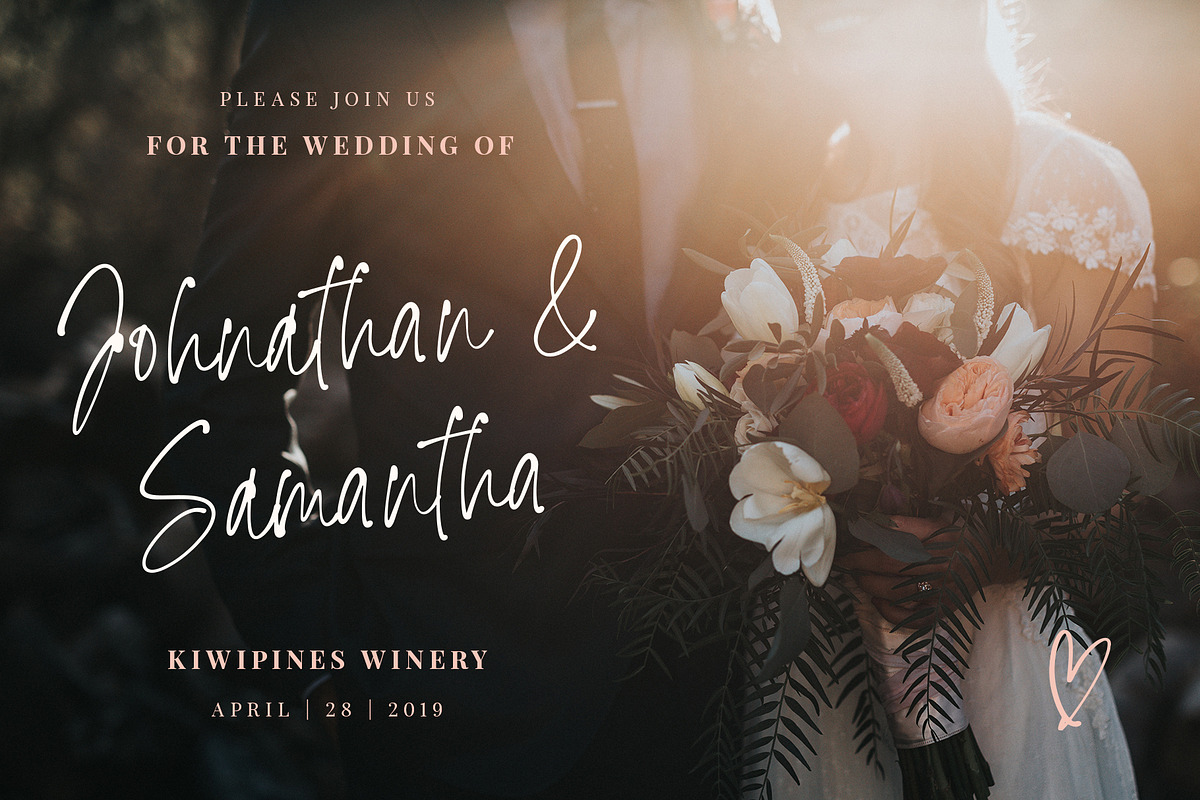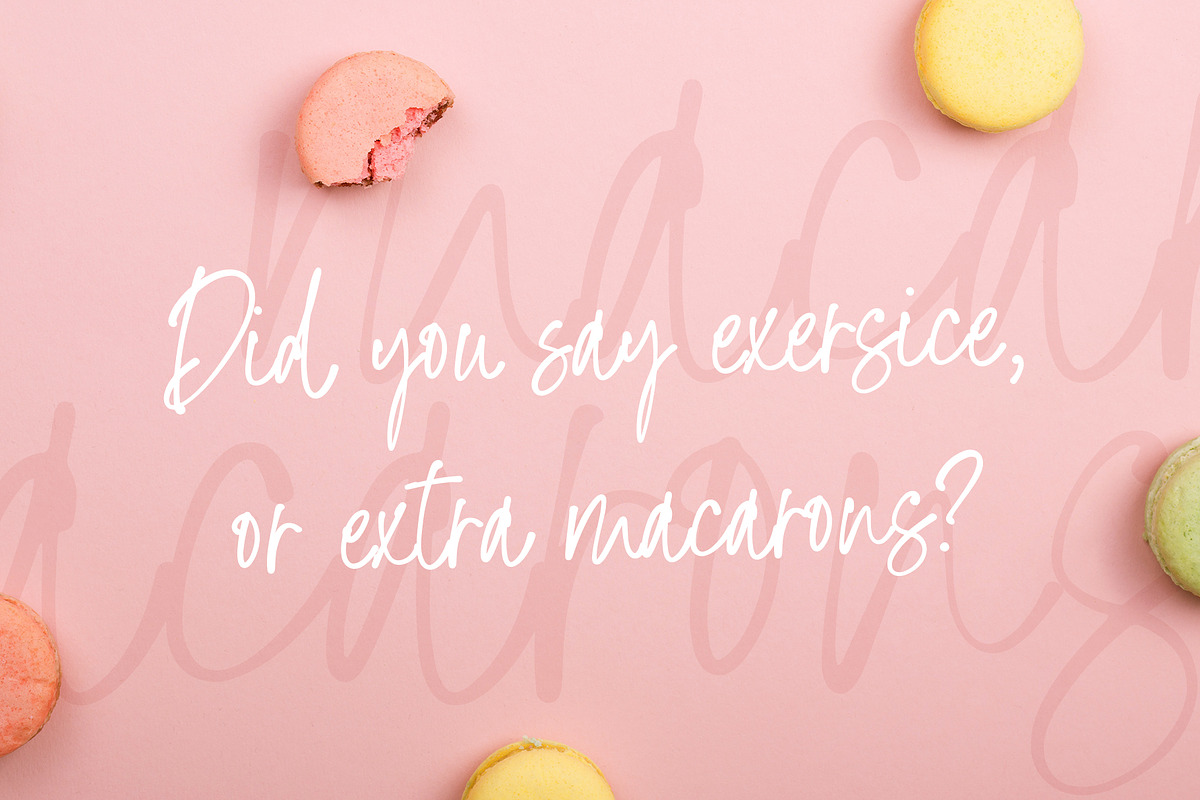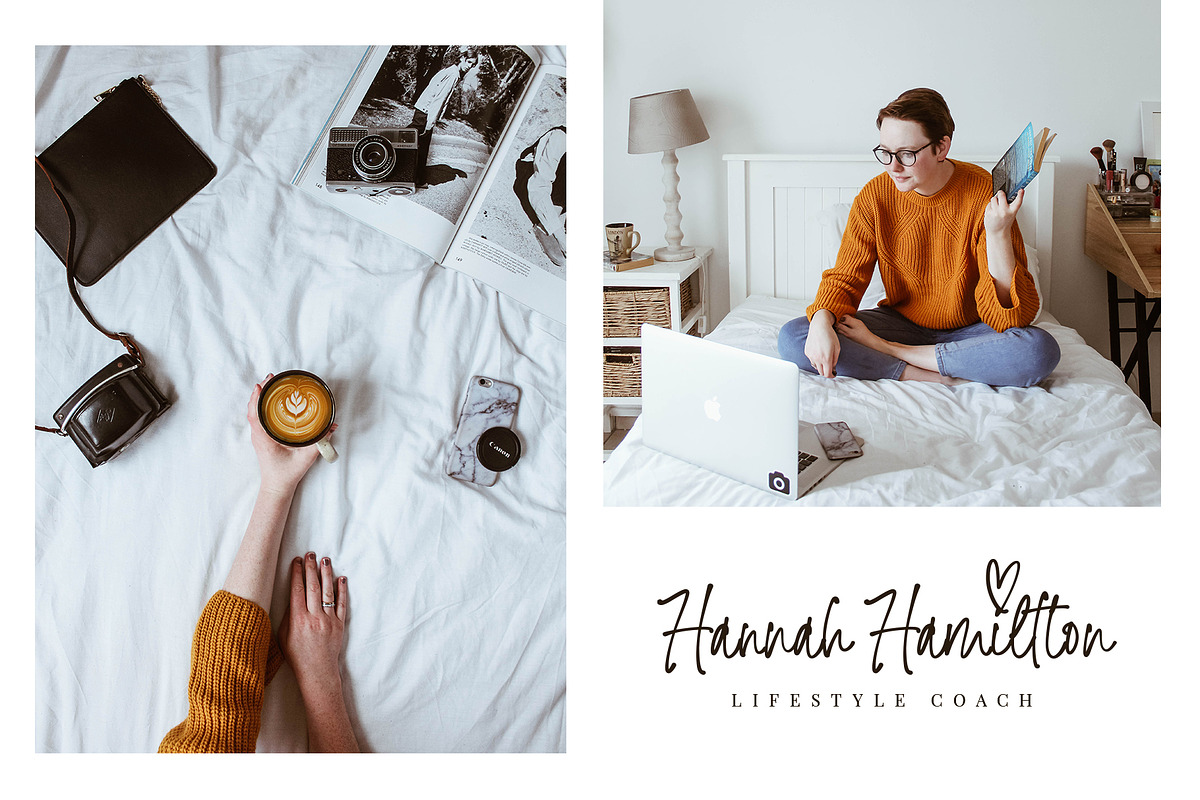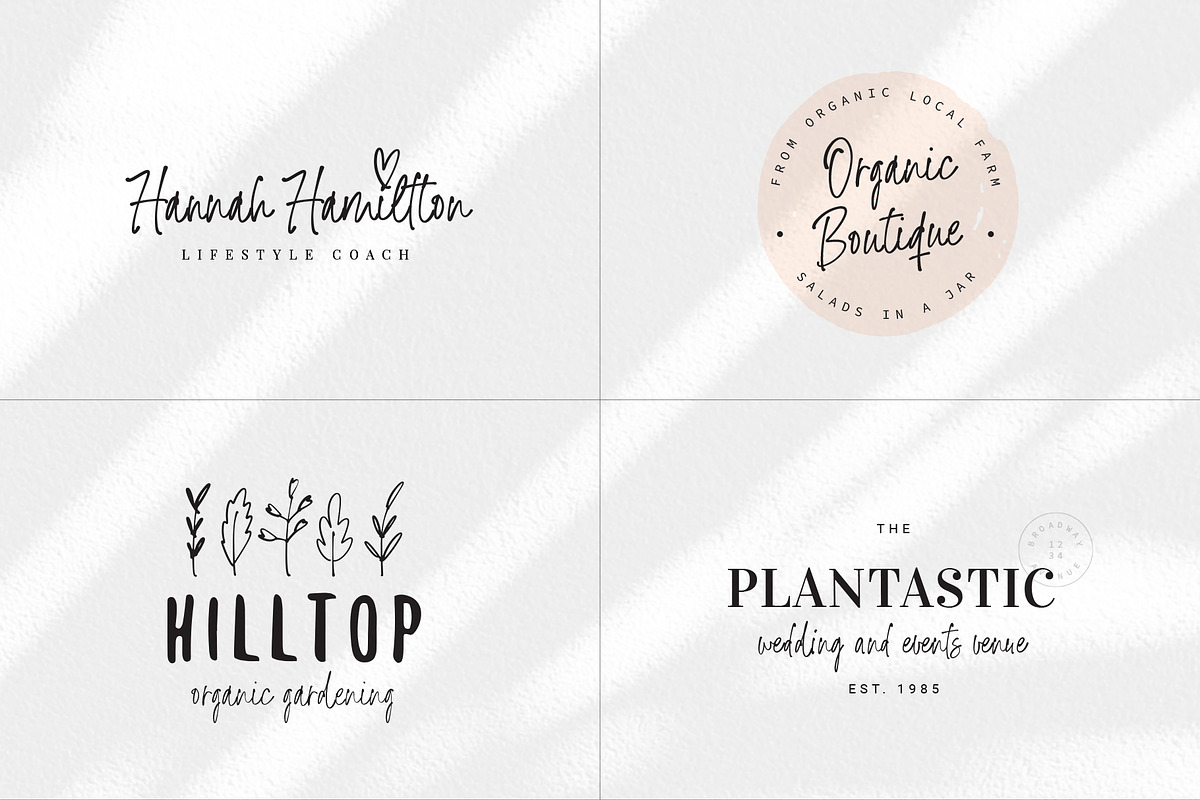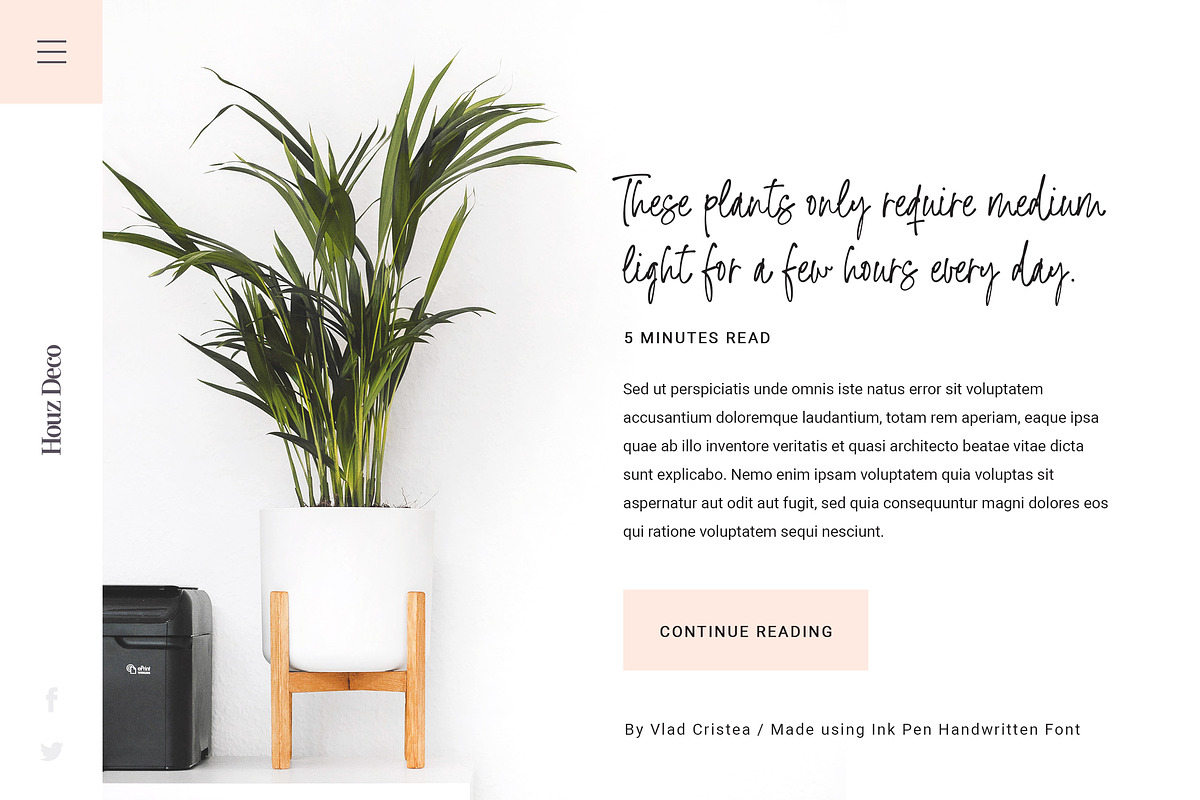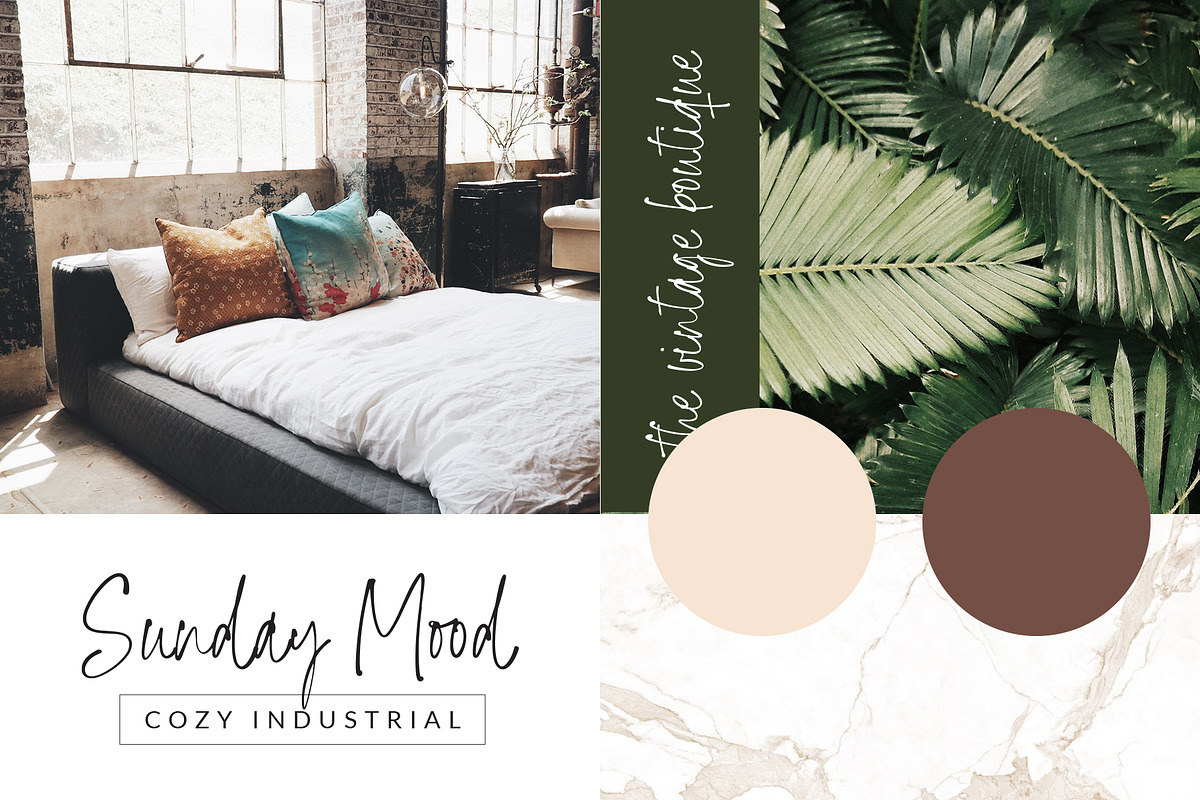
Ink Pen Handwritten Font & Logos
Ink Pen Handwritten Font is a unique 2 weight modern handwritten font. It's inky look style makes it perfect for use in all your hand lettering projects be it wedding invitations, logos, posters, ads or other design projects. Using Ink Pen will definitely make your text stand out.
Ink Pen comes with upper and lowercase Basic Characters, Alternates, Numbers, Marks and Punctuation. Diacritics are also available for Western, Central and Southern European Languages. As a feature you have also the standard Double Letters Ligature, Alternates, Swashes a bunch of Extras and 8 unique Logos.